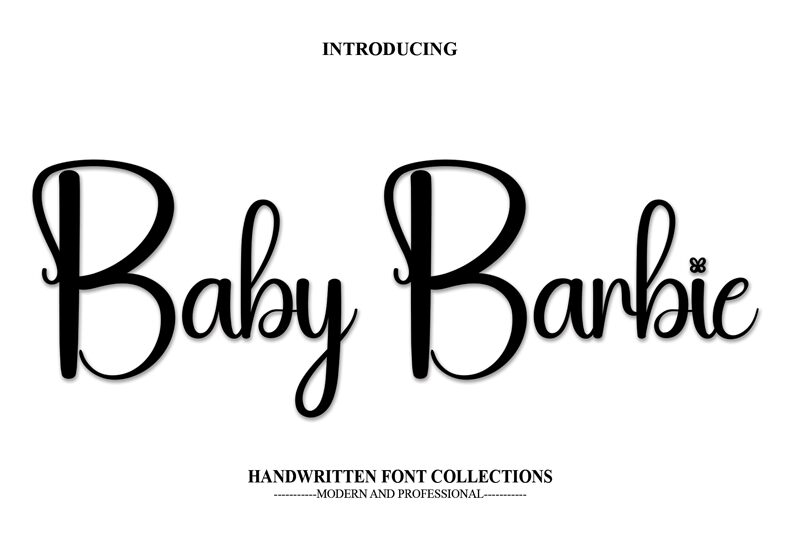
Baby Barbie
Baby Barbie is a delightful, handwritten font designed by Andi Moz. Exuding a playful and whimsical charm, this font effortlessly captures the essence of childhood innocence and femininity. The flowing, script-like strokes and the slight imperfections in the letterforms lend a charming, handcrafted feel to the overall aesthetic.
This font's versatility shines through, making it a perfect choice for a wide range of design applications. From greeting cards and party invitations to product packaging and social media graphics, Baby Barbie infuses a sense of playfulness and warmth into any project. Its distinctive style is sure to captivate and delight audiences, making it a valuable addition to any designer's creative toolkit.